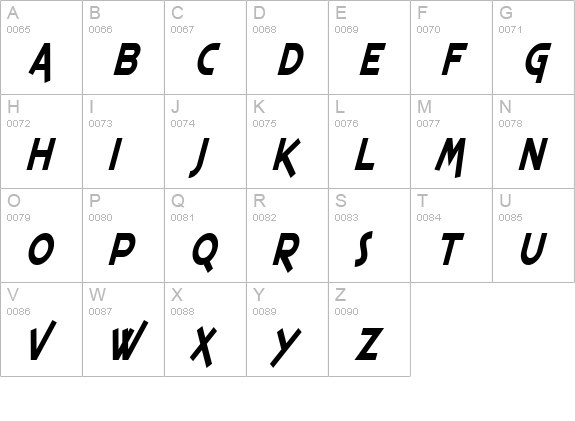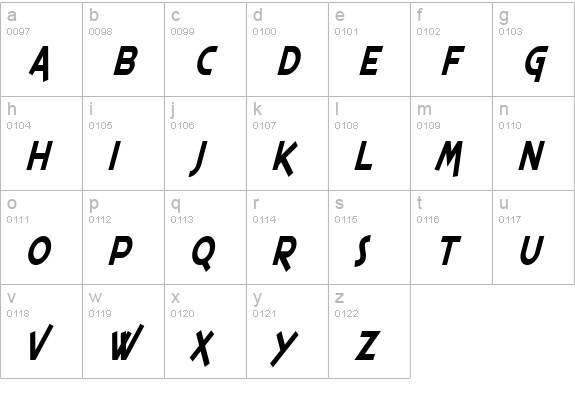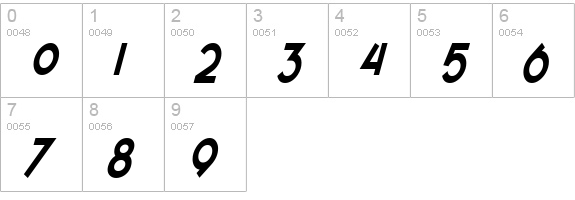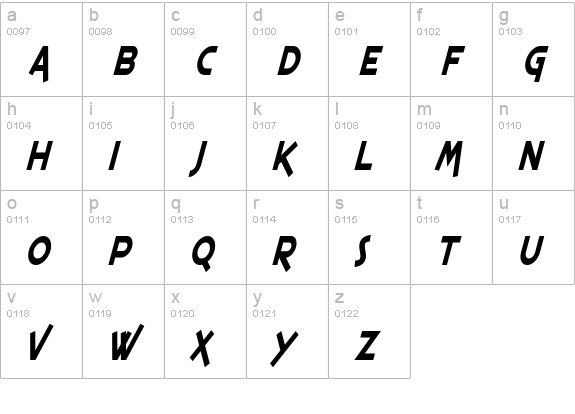
SF Espresso Shack Condensed Italic Font Details
SF Espresso Shack Condensed Italic is a distinctive, condensed-width, italic variant in the SF typeface family \xE2\x80\x94 well suited to design and typography projects.
Introducing SF Espresso Shack Condensed Italic, a sleek and stylish font that will add an extra layer of sophistication to your designs. With its condensed form and elegant italic style, this typeface exudes a sense of modernity and professionalism. Perfect for a wide range of projects, from branding and packaging to headlines and signage, SF Espresso Shack Condensed Italic effortlessly captures attention and leaves a lasting impression. Its unique combination of condensed letterforms and slanted angles creates a visually striking display, making your text stand out in a crowd. But what sets SF Espresso Shack Condensed Italic apart is that it is not only visually appealing, but it is also free. Yes, you read that right! This beautiful font is freely available to download at FontsMarket.com, allowing you to enhance your designs without breaking the bank. Whether you're a designer looking to add a touch of elegance to your next project or a business owner seeking a font that truly represents your brand's personality, SF Espresso Shack Condensed Italic is the perfect choice. Its versatility and accessibility make it a valuable addition to any creative arsenal. So why wait? Don't miss out on the opportunity to elevate your designs with SF Espresso Shack Condensed Italic. Download this stunning font for free at FontsMarket.com today and unlock a world of possibilities for your creative endeavors.